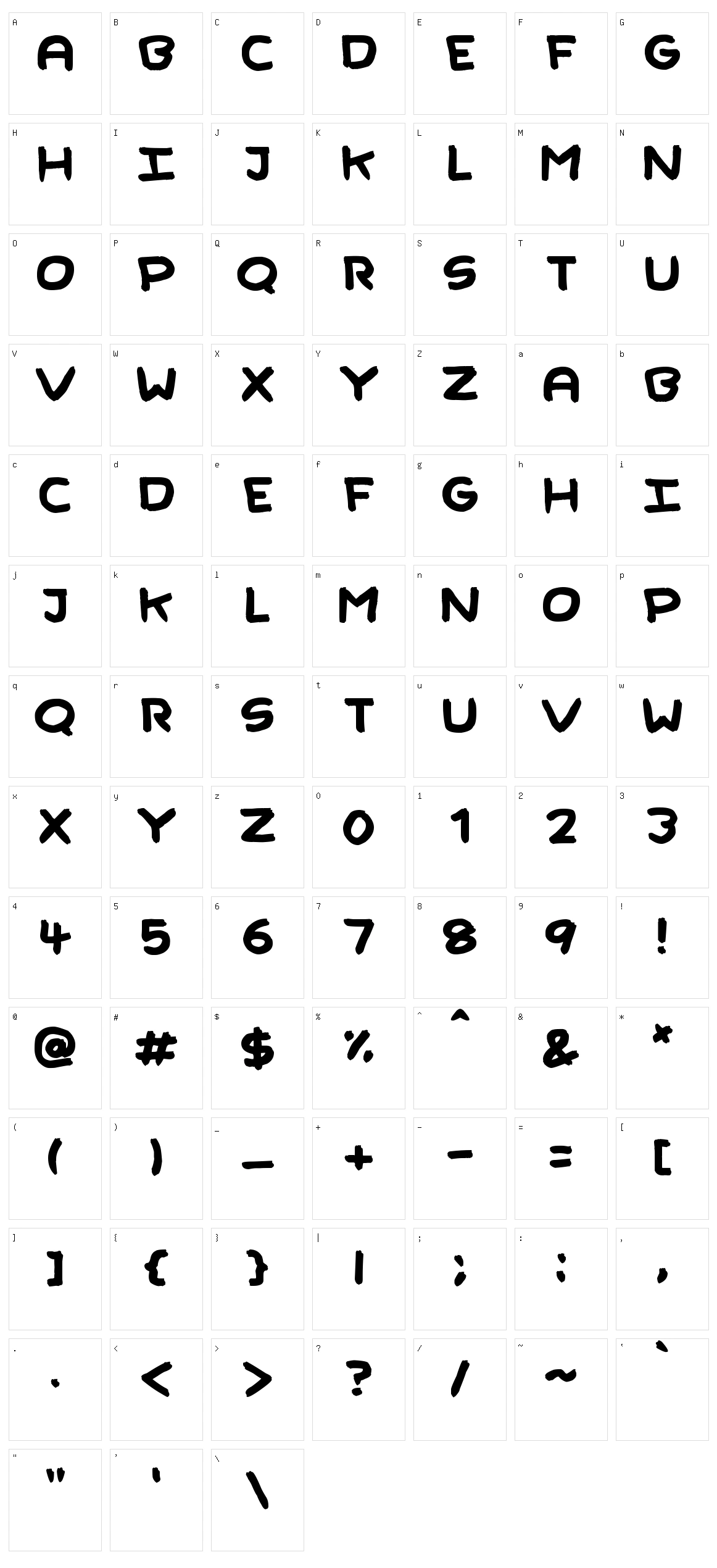
The free font Rough Brush is carefully designed by Joseph Dawson, showcasing a thoughtful balance of creativity and usability and falls under the Script font style. When you download the ZIP file, it contains only 251.1 KB of font files, making it lightweight and quick to download. Please review the license details below to understand permitted usage and distribution rights. If license information is not available, we recommend using this font for personal projects only or contacting the author directly for commercial usage permissions.